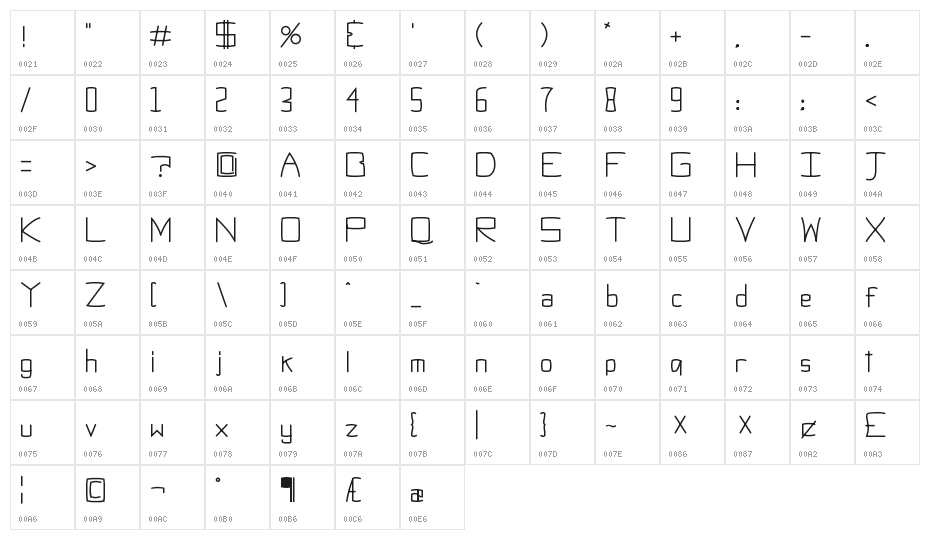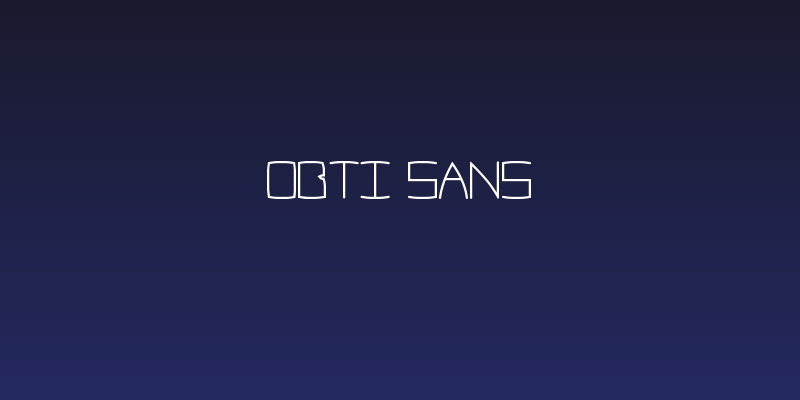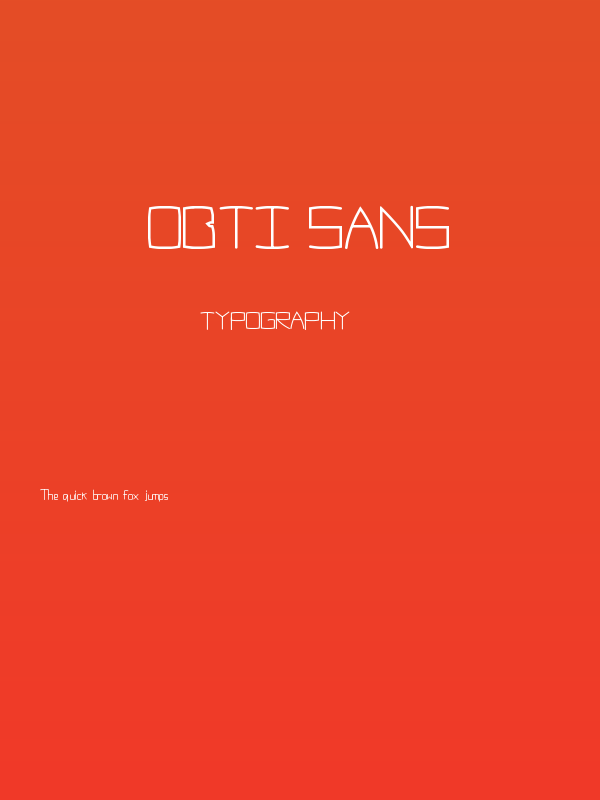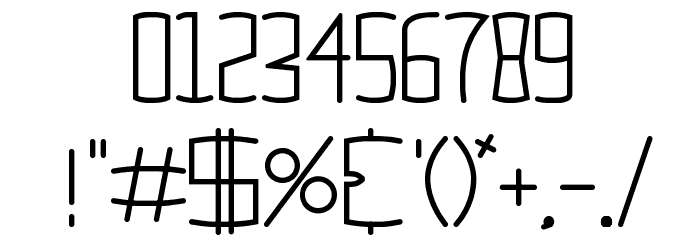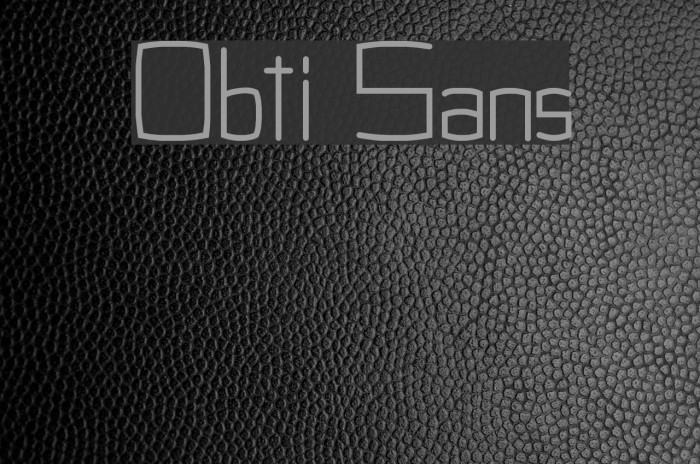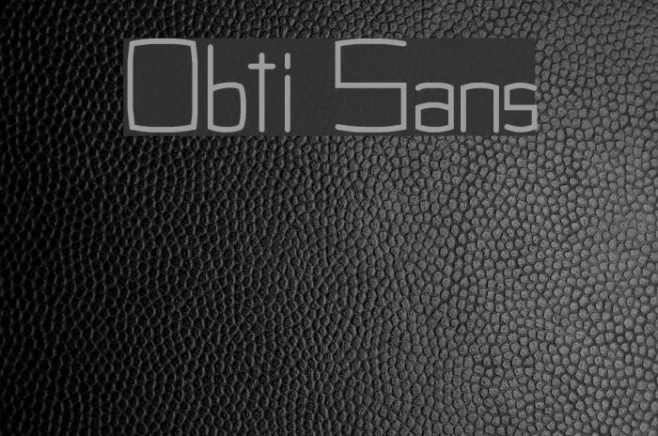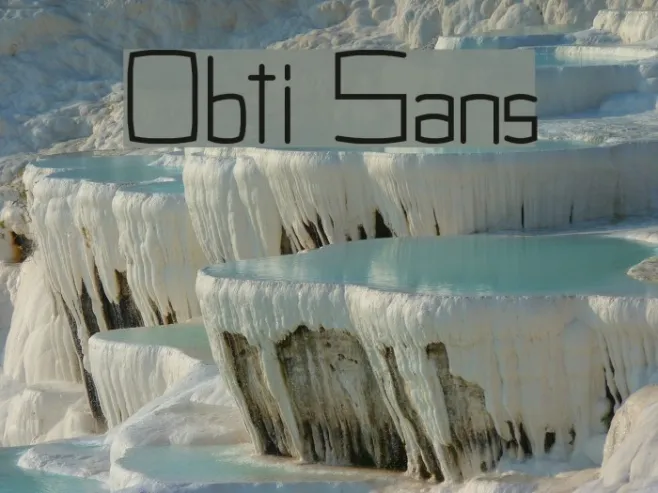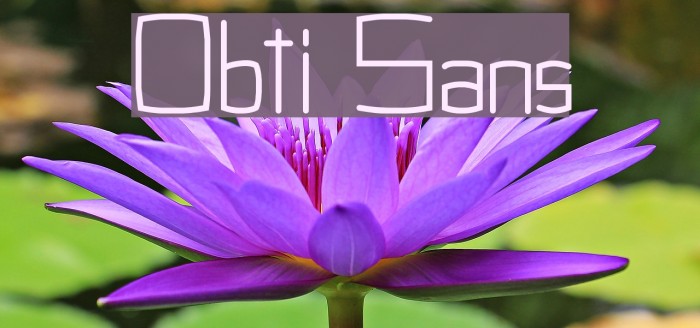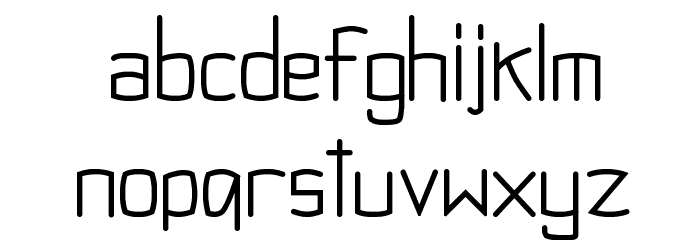
Obti Sans Font
Obti Sans Description
This font features a modern, geometric design with clean, straight lines and a slightly condensed appearance. The uppercase letters are uniform in height, with a consistent stroke width that gives a balanced and harmonious look. The lowercase letters maintain the geometric theme, with rounded edges that soften the overall appearance. Numbers are clear and legible, matching the style of the letters. Special characters are designed with the same attention to detail, ensuring a cohesive look across all glyphs. The font's simplicity and clarity make it versatile for various design applications.